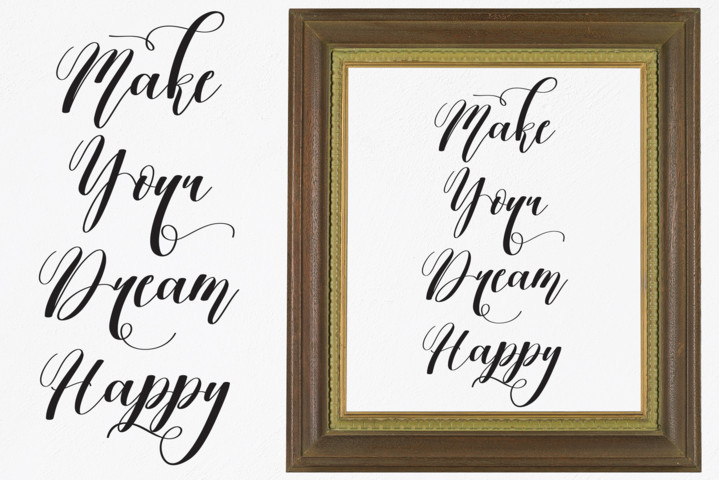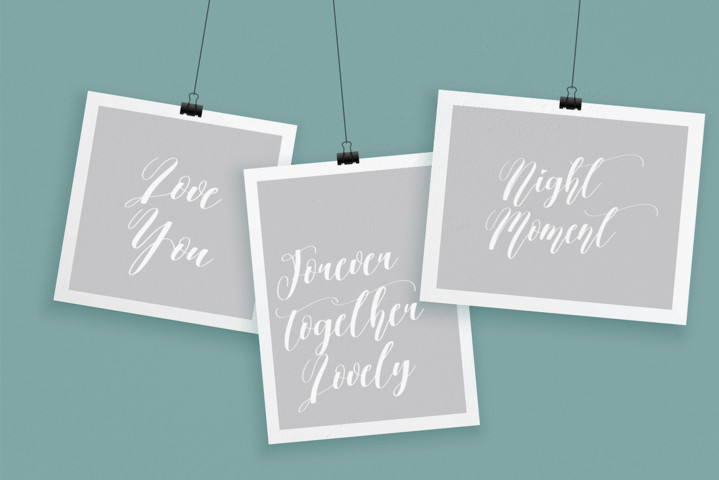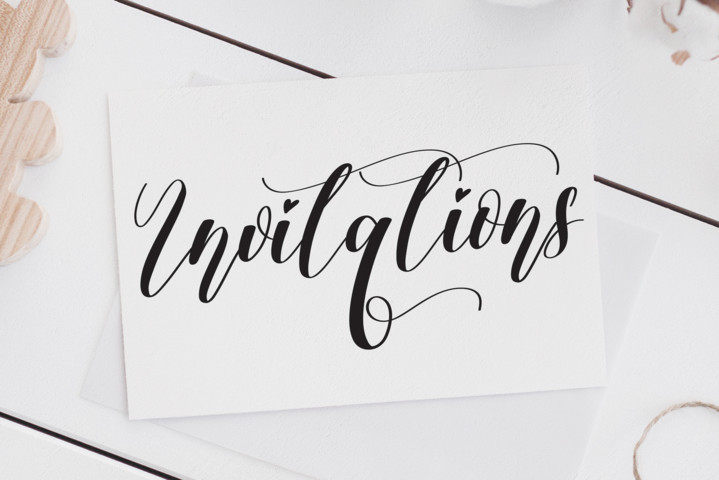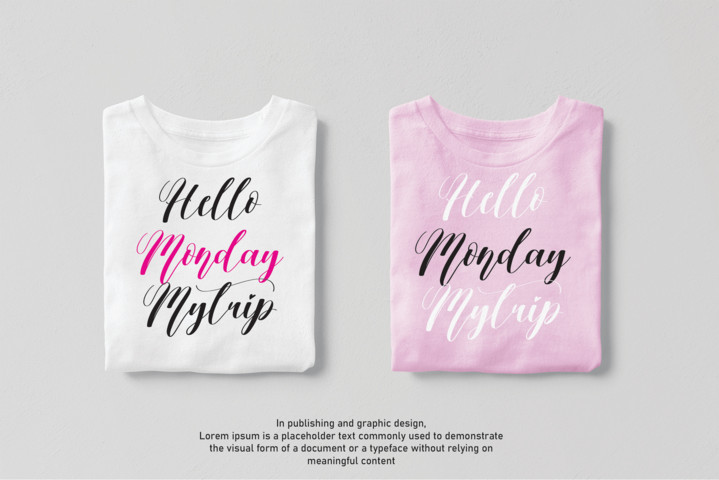
Vanillamilk Font
Vanillamilk Script Font
It’s a modern typeface with unique glyphs. You can use this creative font for wall displays, wedding invitations, social media post logos, advertisements, product packaging, product designs, labels, photography, watermarks, invitations, stationery, and any project that requires taste handwriting.